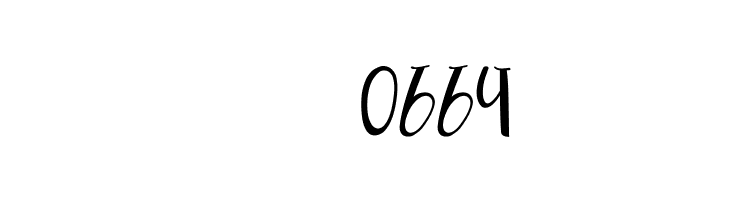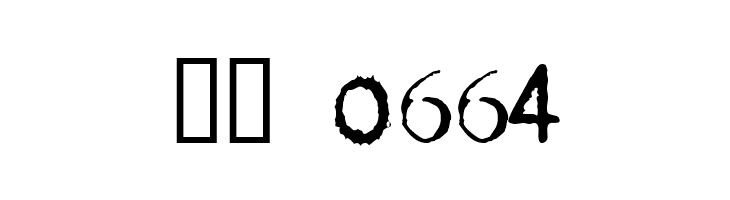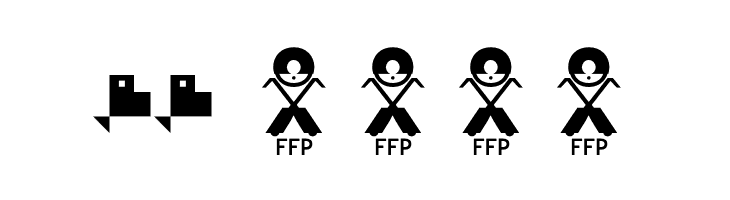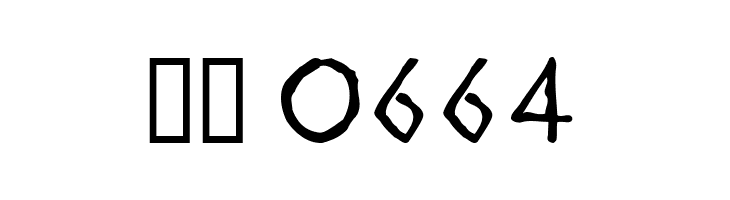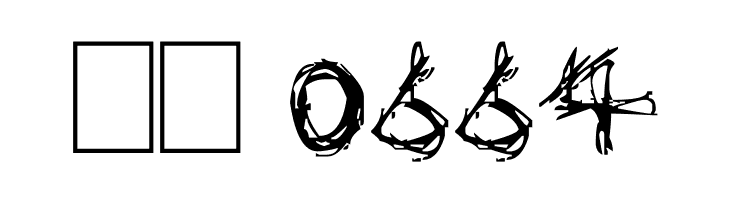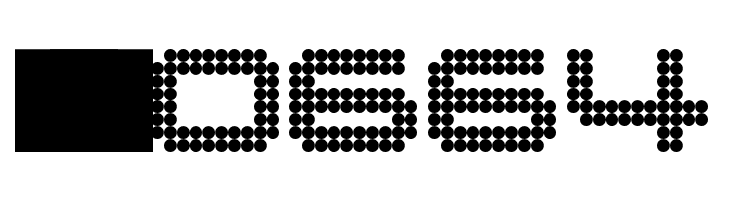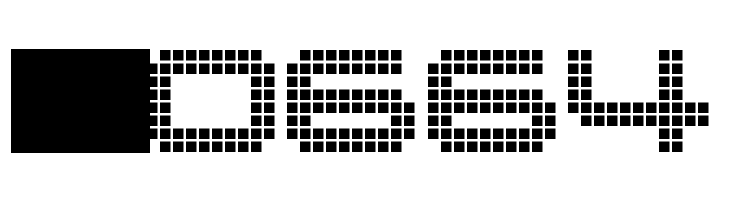
( Font by Inaki Marquinez )
A distressed, grungy font with a vintage, textured appearance.
A futuristic, segmented font with a mechanical and geometric design.
A futuristic, geometric font with cut-out sections and a modern aesthetic.
A bold, futuristic font with geometric and structured letterforms.
A bold, italicized font with a futuristic and dynamic design.
A futuristic, geometric italic font with sharp lines and dynamic style.
A futuristic, hollow font with a mechanical and geometric design.
A futuristic, hollow, geometric font with sharp angles and smooth curves.
A futuristic, geometric font with clean lines and unique cut-out shapes.
( Fonts by Andi Moz )
A whimsical and decorative font with playful, elongated serifs and curves.
( Fonts by Anwar )
A whimsical, playful font with a hand-drawn, animated style.
A bold, decorative font with abstract, alien-like symbols and playful curves.
( Fonts by Eddy Goodboy )
A light, whimsical handwritten script with tall, narrow forms.
A bold, geometric font with strong horizontal lines and a modern aesthetic.
( Fonts by Freddie Line )
A modern, geometric font with clean lines and a futuristic aesthetic.
A bold, futuristic font with geometric and cut-out elements, perfect for modern and edgy designs.
A bold, geometric font with a futuristic, stencil-like design.
( Glyphobet Font Foundry - glyphobet.net/typography/ )
A decorative, abstract font with geometric shapes and symmetrical patterns.
( Fonts by Tobias Sommer - mentalmenthol.blogspot.com )
A bold, geometric font with a filled, block-like appearance.
( Fonts by Tobias Sommer - mentalmenthol.blogspot.com )
A bold, geometric font with strong, clean lines and a modern aesthetic.
( Fonts by Tobias Sommer - mentalmenthol.blogspot.com )
A bold, stencil-style font with sharp angles and cutouts, offering a rugged and industrial look.
A clean, modern sans-serif font with geometric influences and uniform structure.
A dynamic brush script font with expressive, fluid strokes and a hand-painted aesthetic.
( Emtheen Studio - Muhammad Dimas - instagram.com/dimsngrho )
A lively, expressive handwritten font with fluid, dynamic strokes.
( Fonts by dustBUST - Andreas Nylin )
A dot-based font with a digital, modern aesthetic.